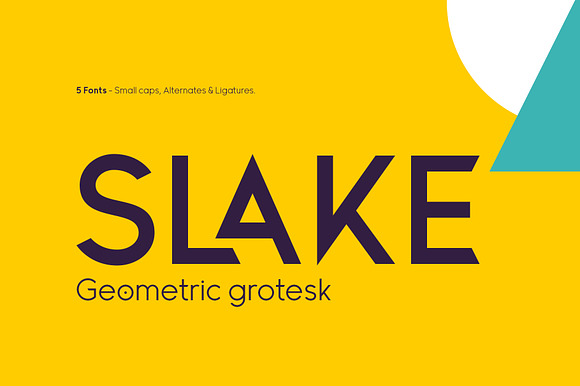
Slake Typeface
Slake Typeface by victorbarac is a font selected for branding, posters, packaging, typography.
Why Slake Typeface is worth a look
Slake Typeface by victorbarac fits naturally into Branding, posters, packaging, typography.